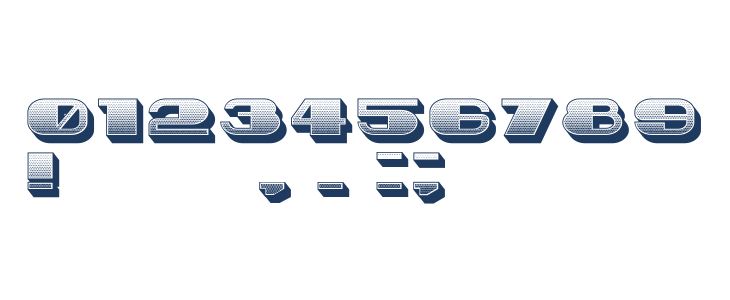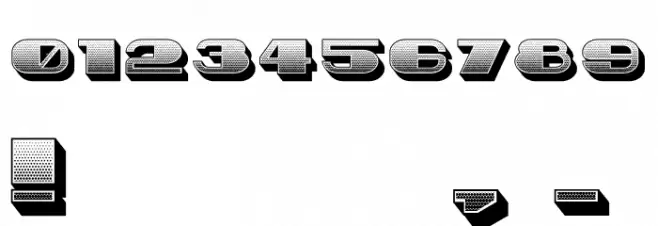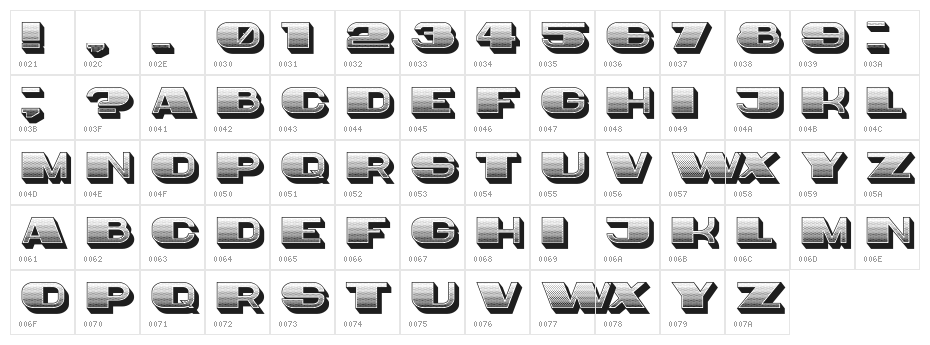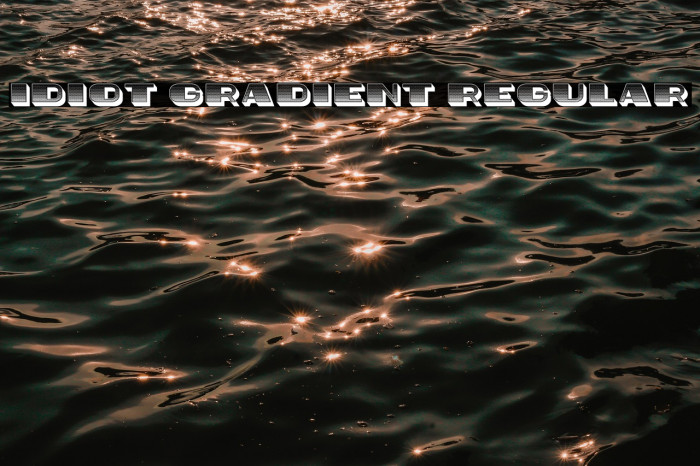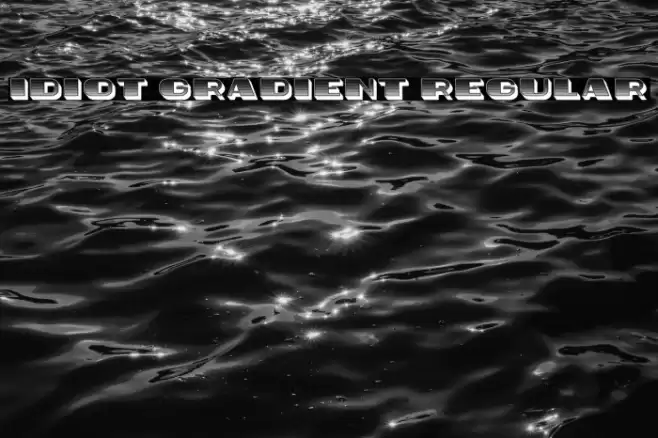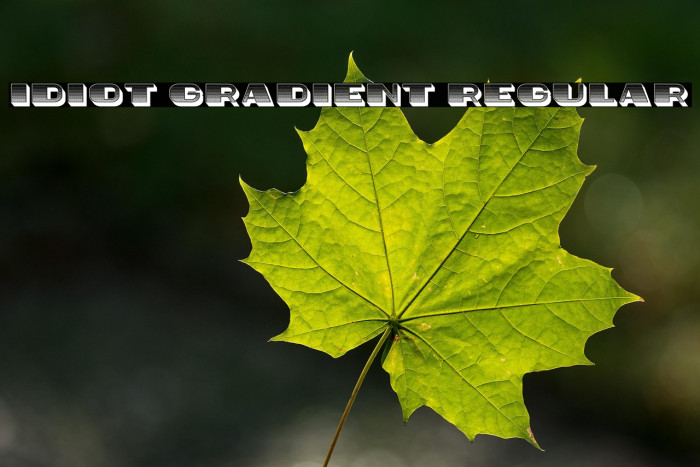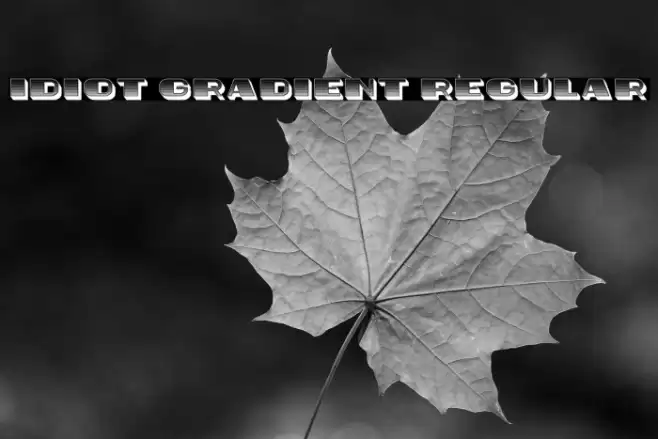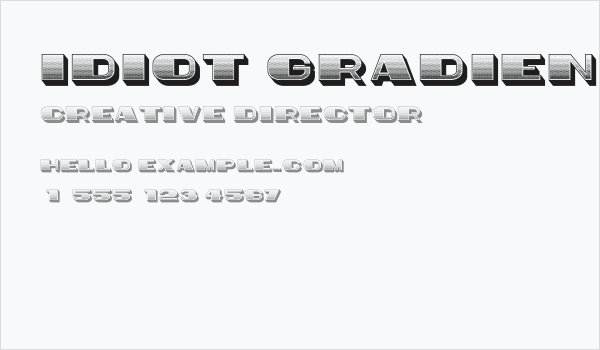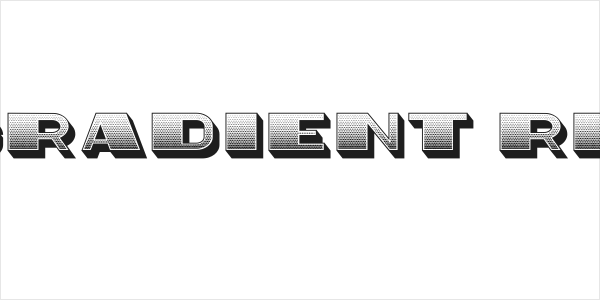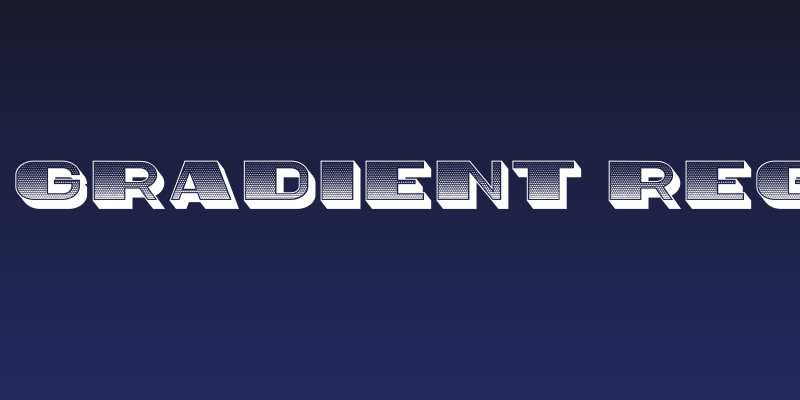
Idiot Gradient Regular Font
Idiot Gradient Regular Description
This font features a bold, three-dimensional design with a gradient effect that gives each character a distinct, shadowed appearance. The uppercase letters are prominently styled with a strong, block-like structure, while the numbers and special characters maintain the same robust aesthetic. The gradient shading adds depth and a modern twist to the classic bold typeface, making it stand out in any design. The characters are evenly spaced, ensuring readability despite the intricate design. This font is ideal for creating eye-catching headlines or logos that require a strong visual impact.